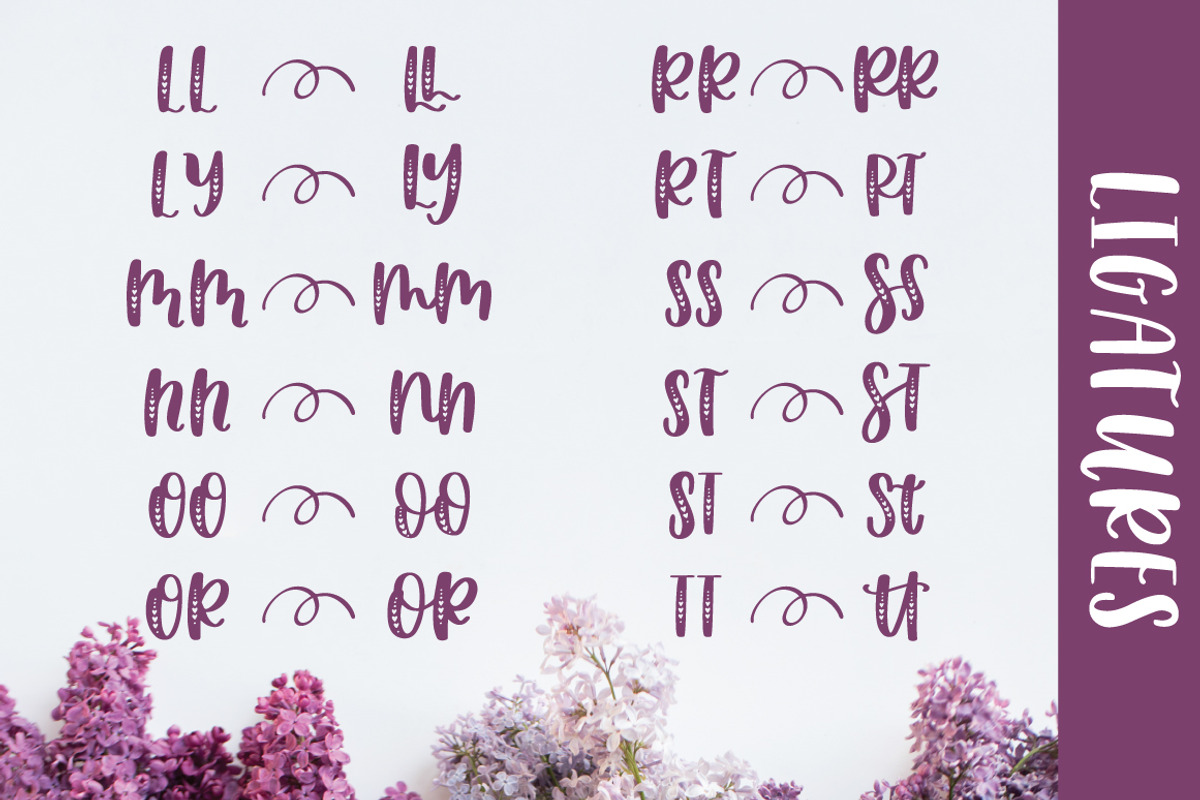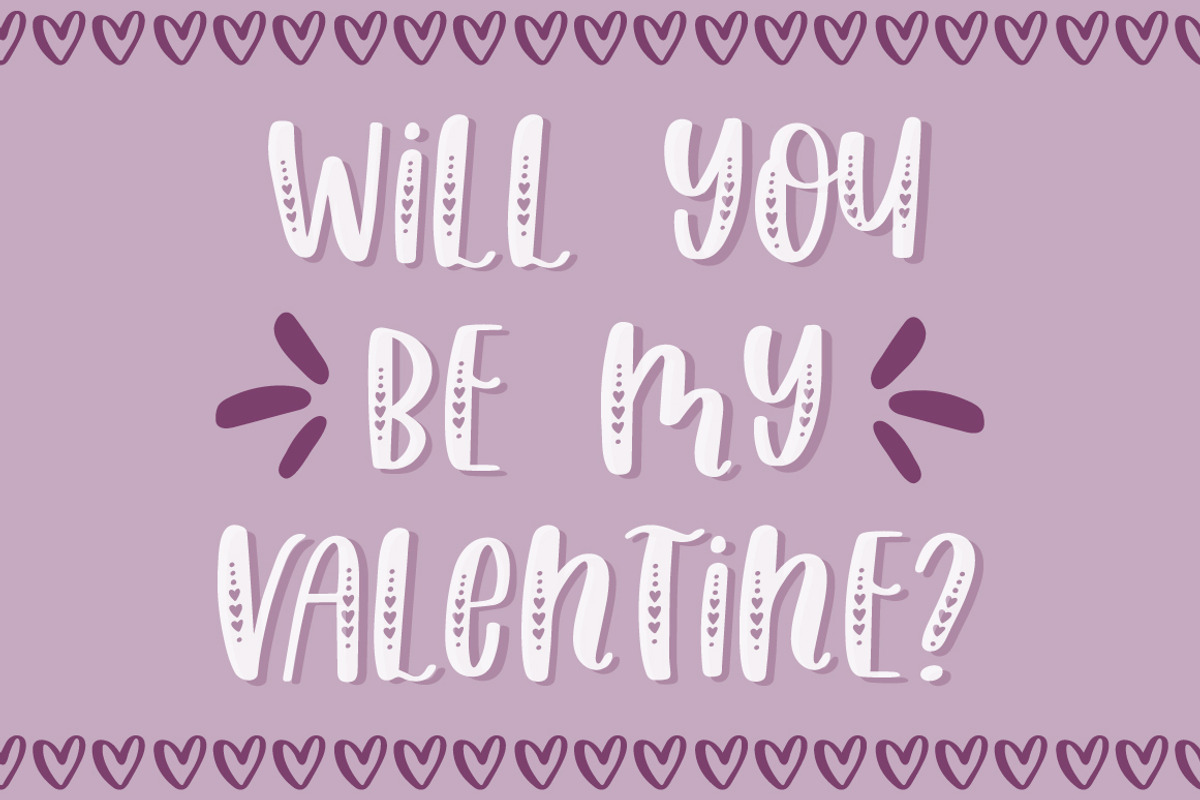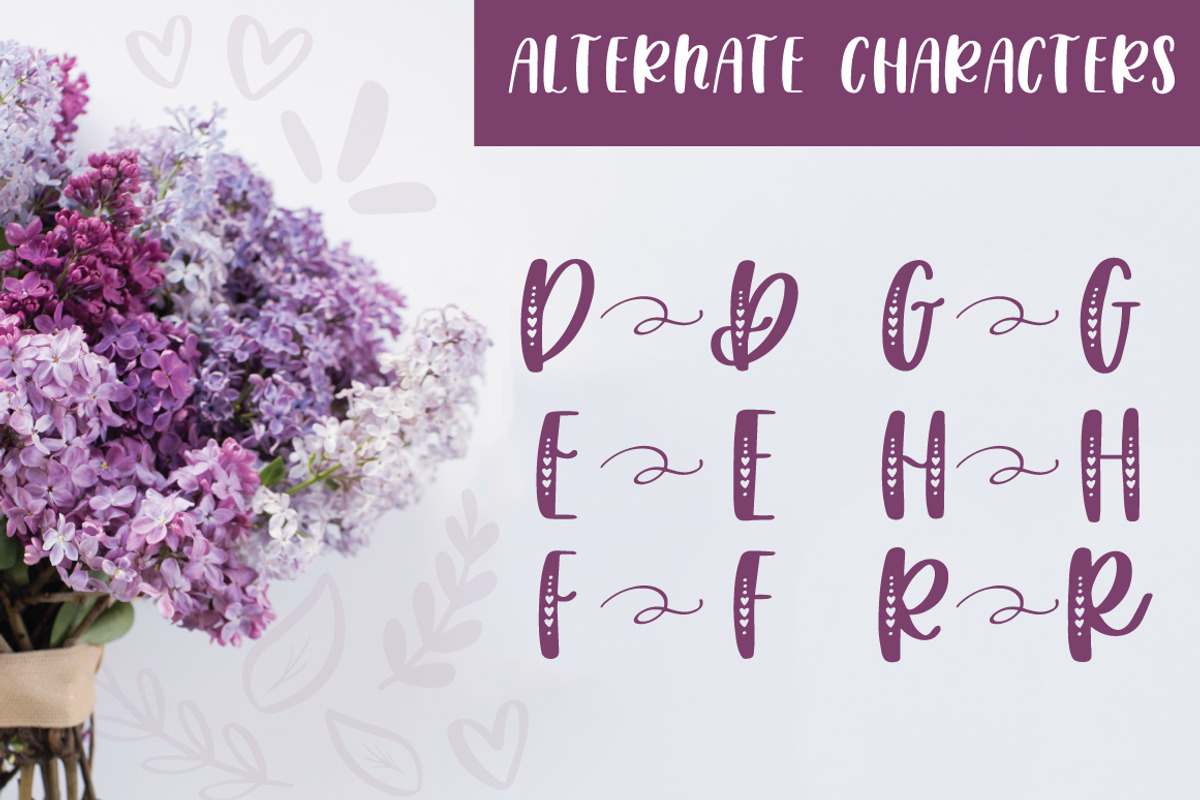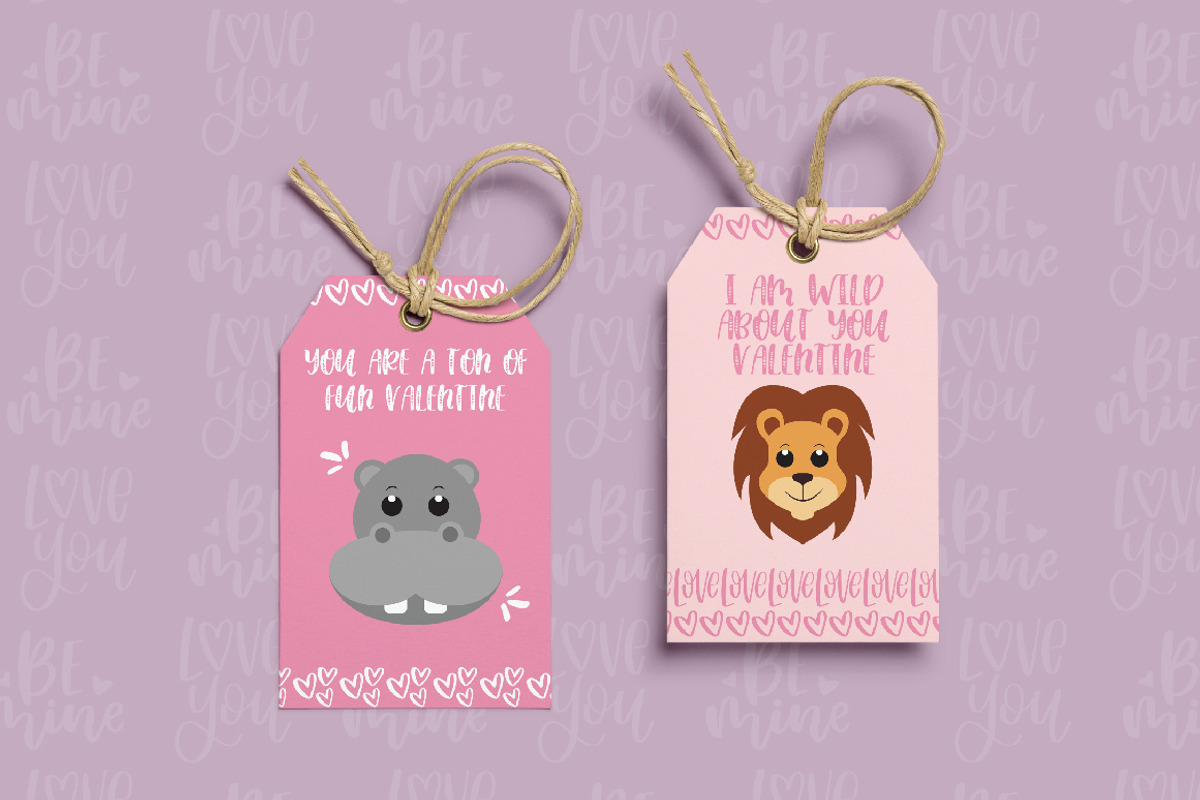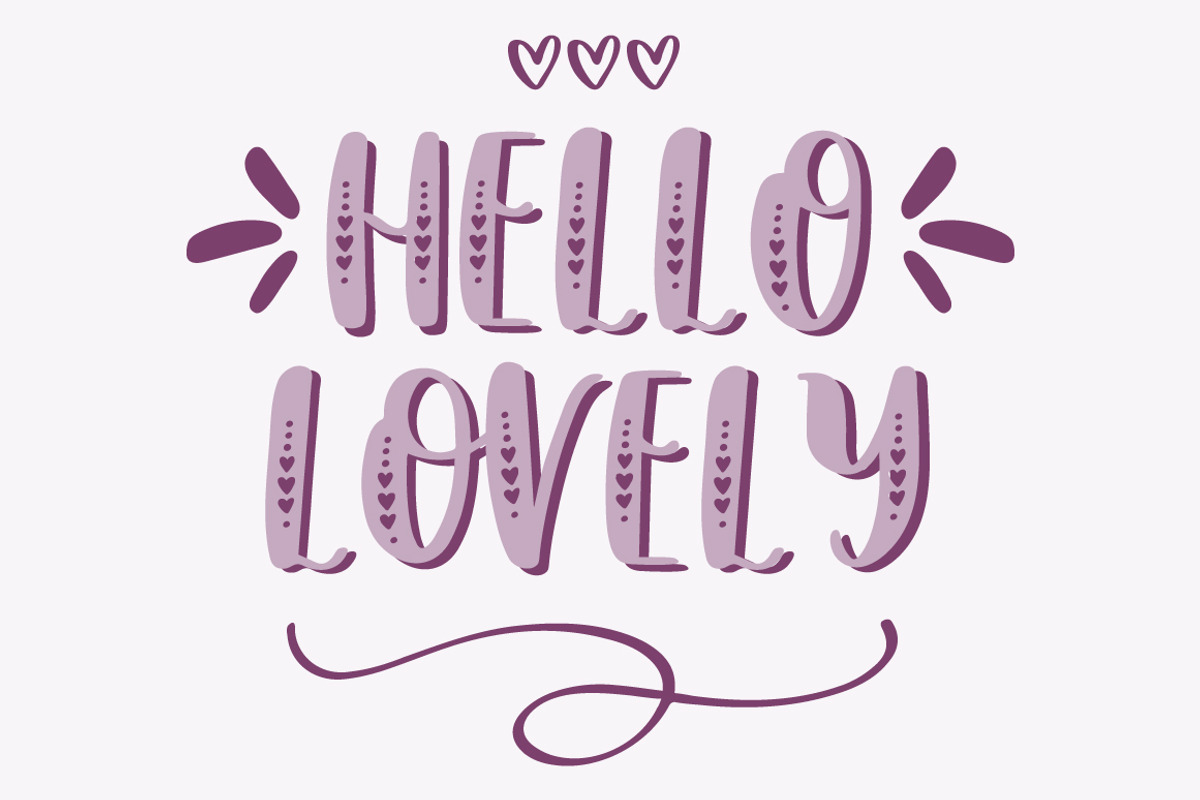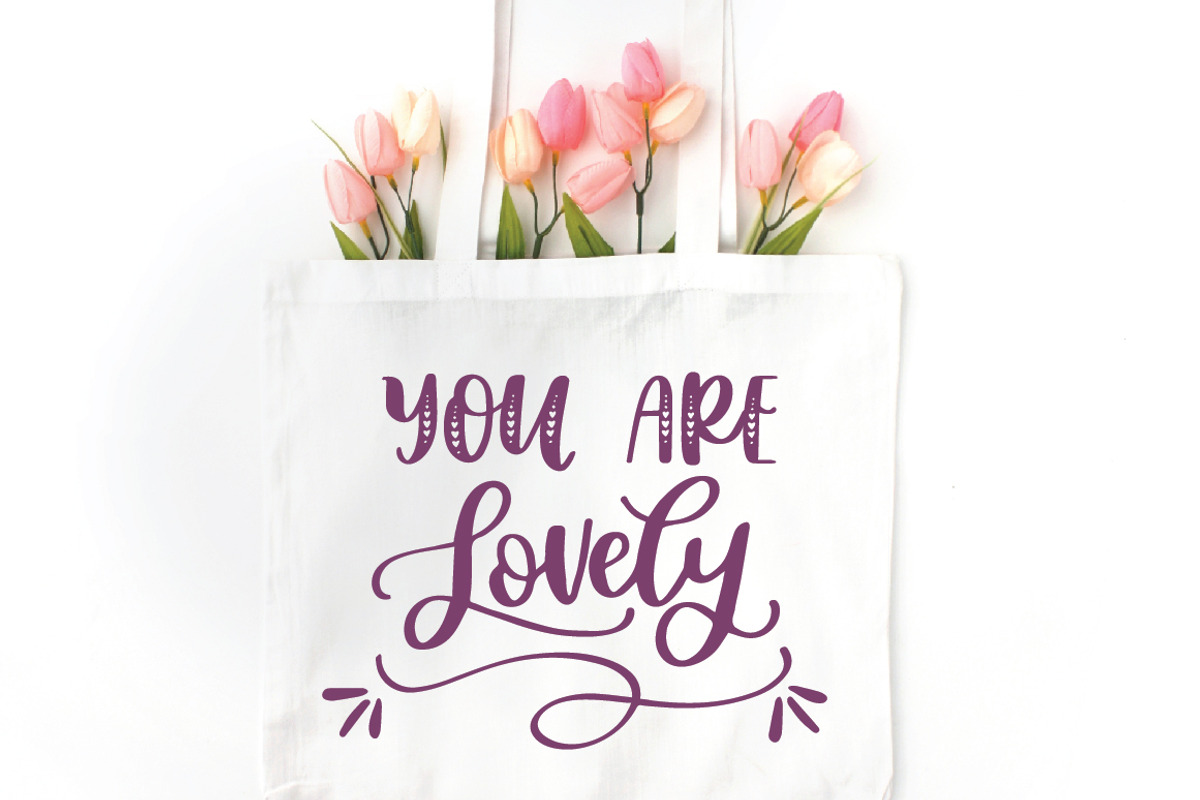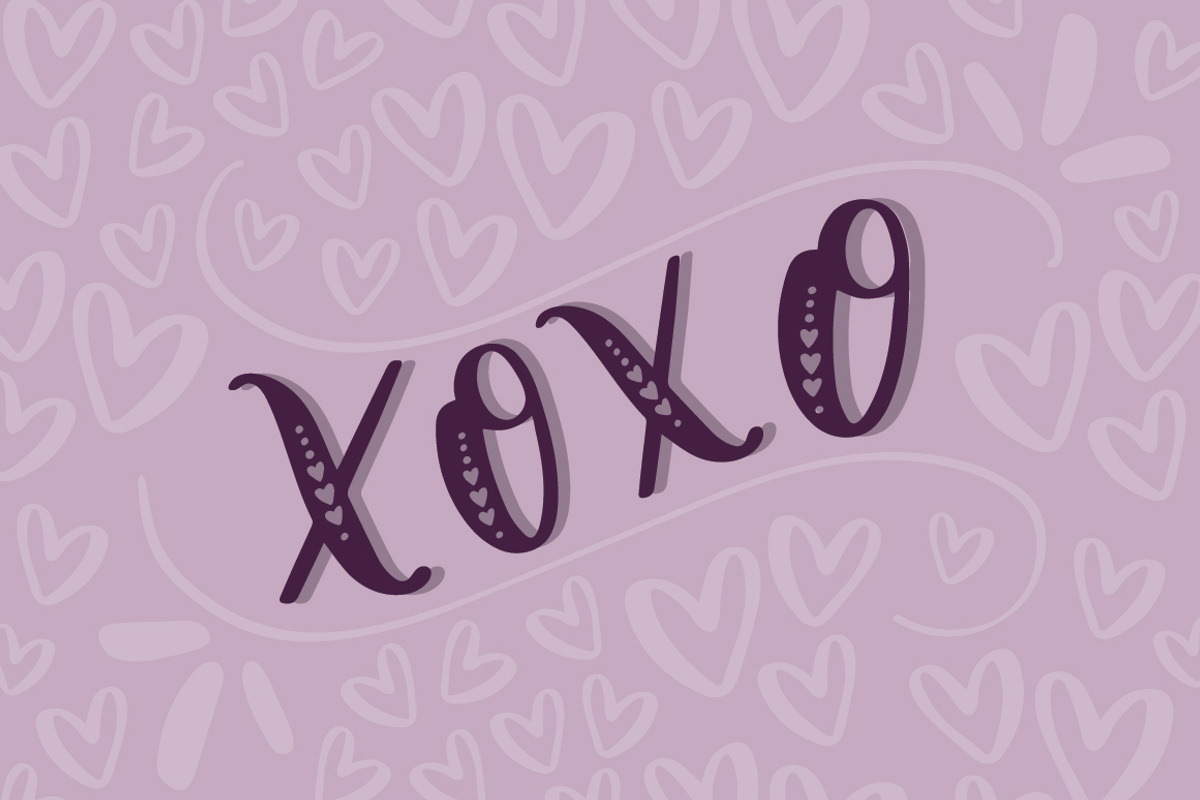
Lovebug Hearts Font Trio
OCT 2019 UPDATE: Lovebug now has two sets of letters! As well as adding 26+ new characters, ligatures and alternate characters have been updated.
Lovebug is a fun, handwritten font trio that includes a regular solid font, the hearts font, and a symbols font. Click through to see everything included!
- The Regular & Hearts font have:
- 6 discretionary ligatures, 6 standard ligatures
- 6 alternate characters